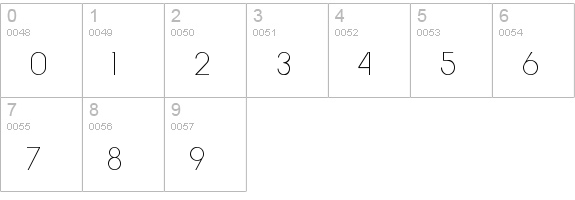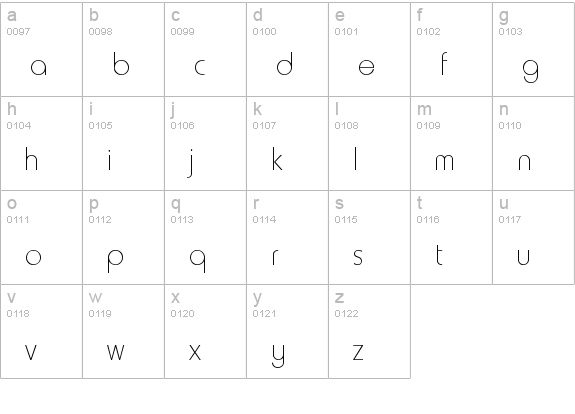
Howard-Light is a refined, elegant variant in the Howard typeface family \xE2\x80\x94 well suited to elegant body text, refined sub-headings, and luxury branding.
Howard-Light is a sleek and elegant font that exudes sophistication and modernity. Its clean lines and contemporary design make it perfect for a wide range of projects, from branding to web design. The light weight of the font gives it a delicate and refined appearance, while still maintaining excellent readability. One of the best things about Howard-Light font is that it is completely free to download. You can easily access this stunning font at FontsMarket.com, where you can enhance your creative projects with this stylish typeface without any cost. Whether you are a graphic designer, a blogger, or simply someone looking to add a touch of class to your work, Howard-Light font is a fantastic choice that won't break the bank. Download it today and elevate your designs to the next level with this beautiful and versatile font.